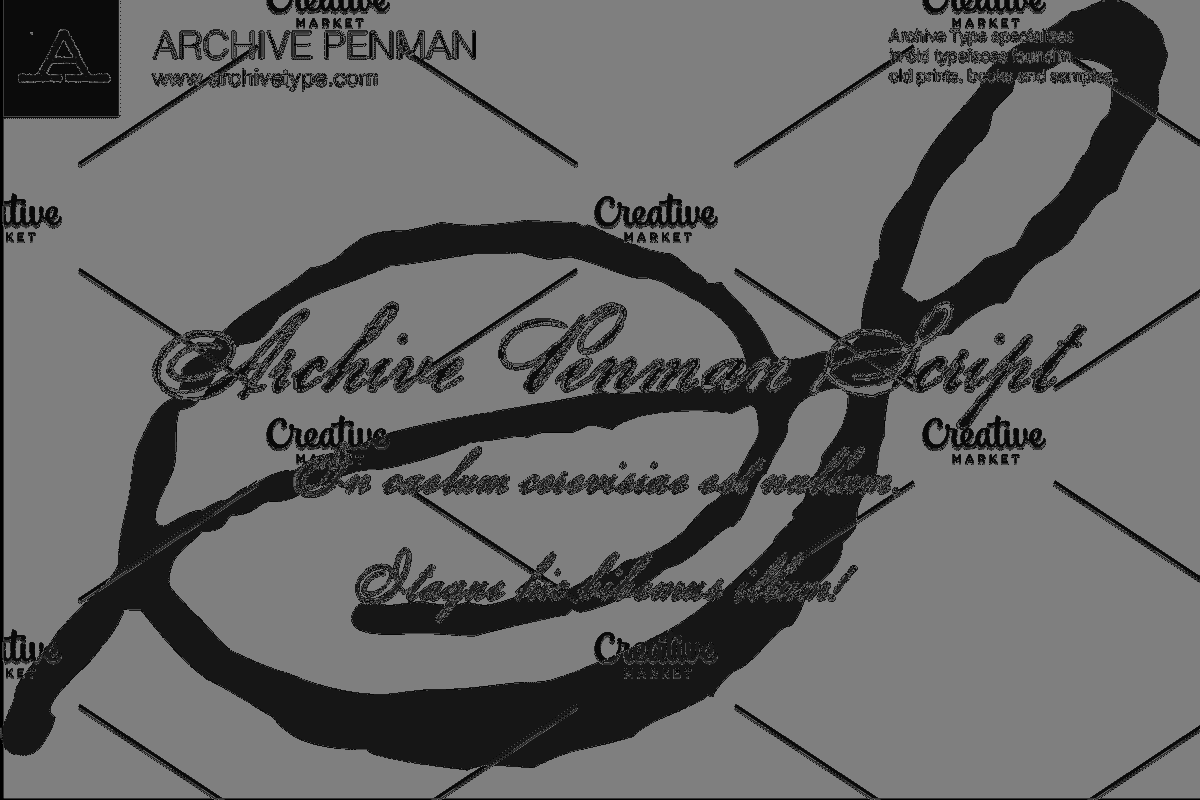
Archive Penman Script Font Free Download is a beautifully detailed calligraphic typeface inspired by vintage penmanship and elegant handwriting styles. With its smooth, flowing strokes and graceful ligatures, this font is perfect for wedding invitations, historical branding, certificates, classic packaging, and projects that aim to evoke timeless sophistication.
Archive Penman Script Font Free Download captures the charm of old-world scripts, making your designs feel both refined and personal. Whether you're creating a heritage-inspired logo or a formal announcement, this font adds elegance and character. Download it today and bring an heirloom-quality touch to your next design with Archive Penman.